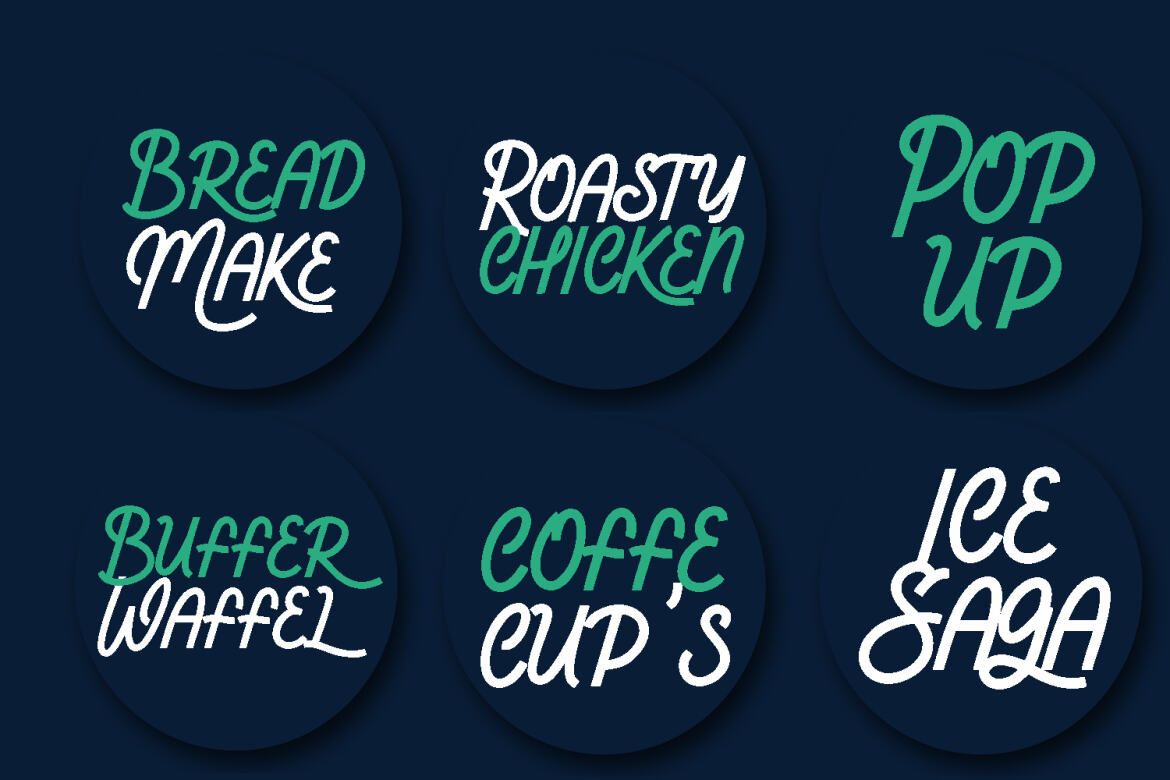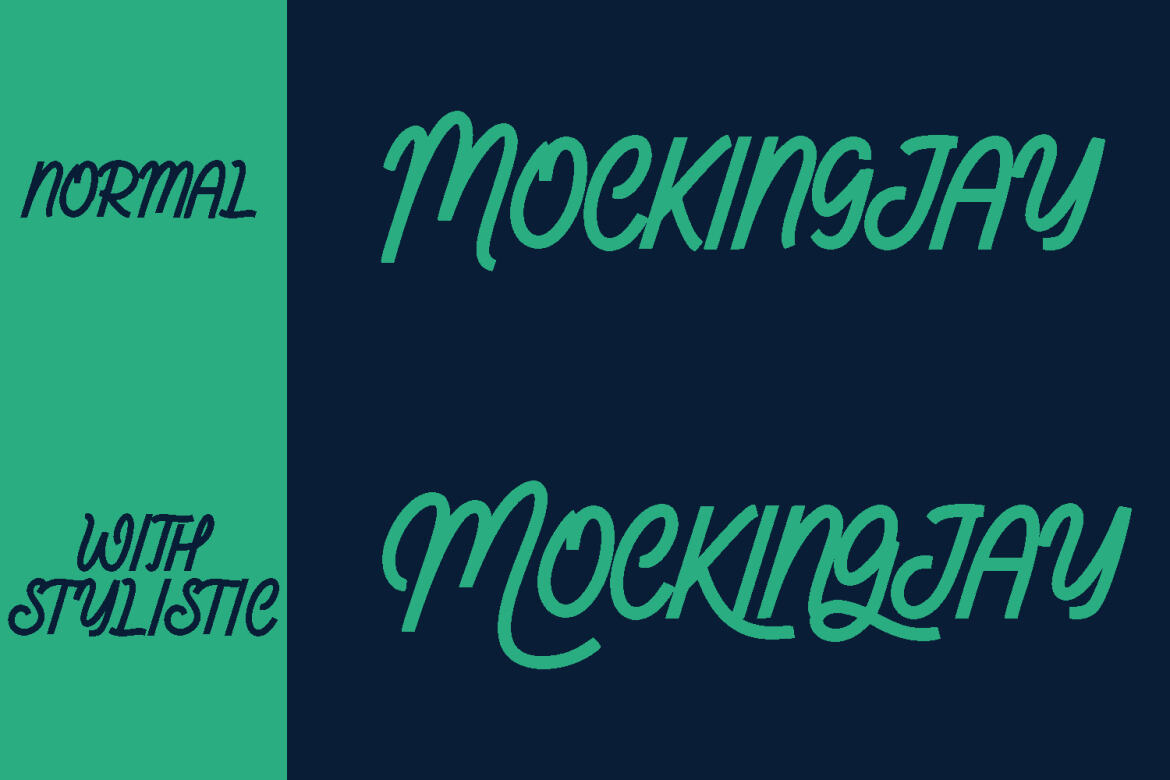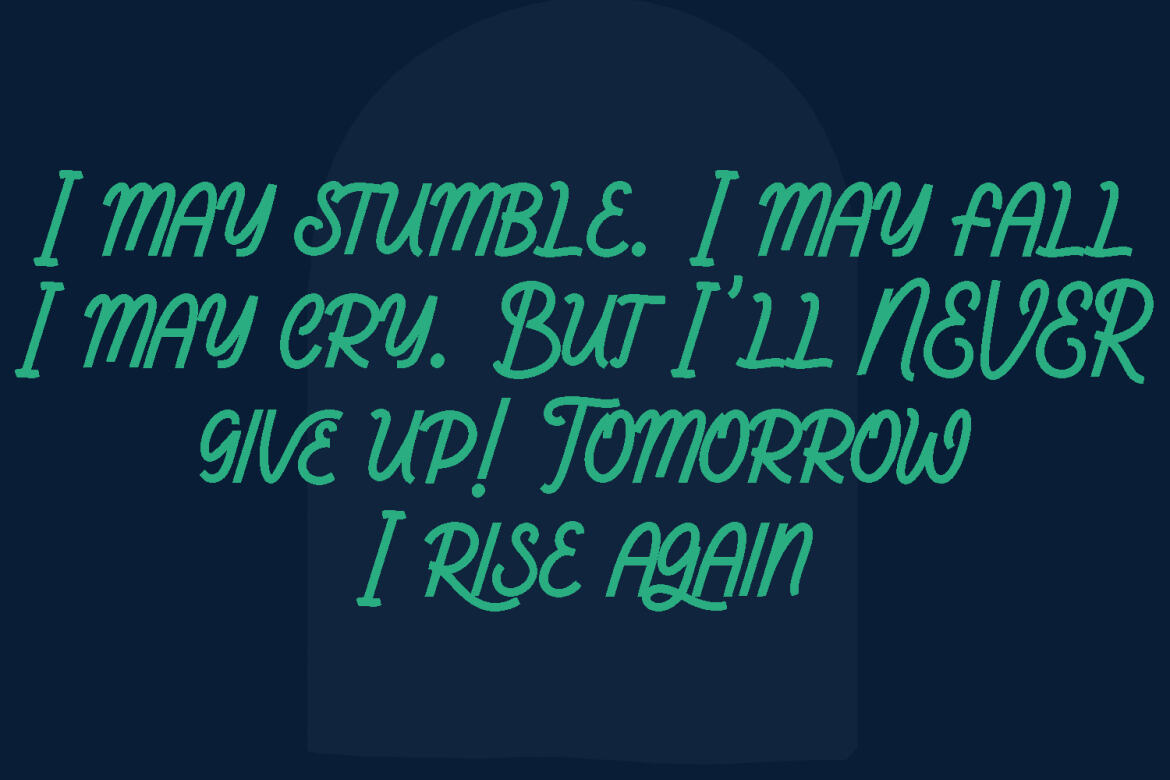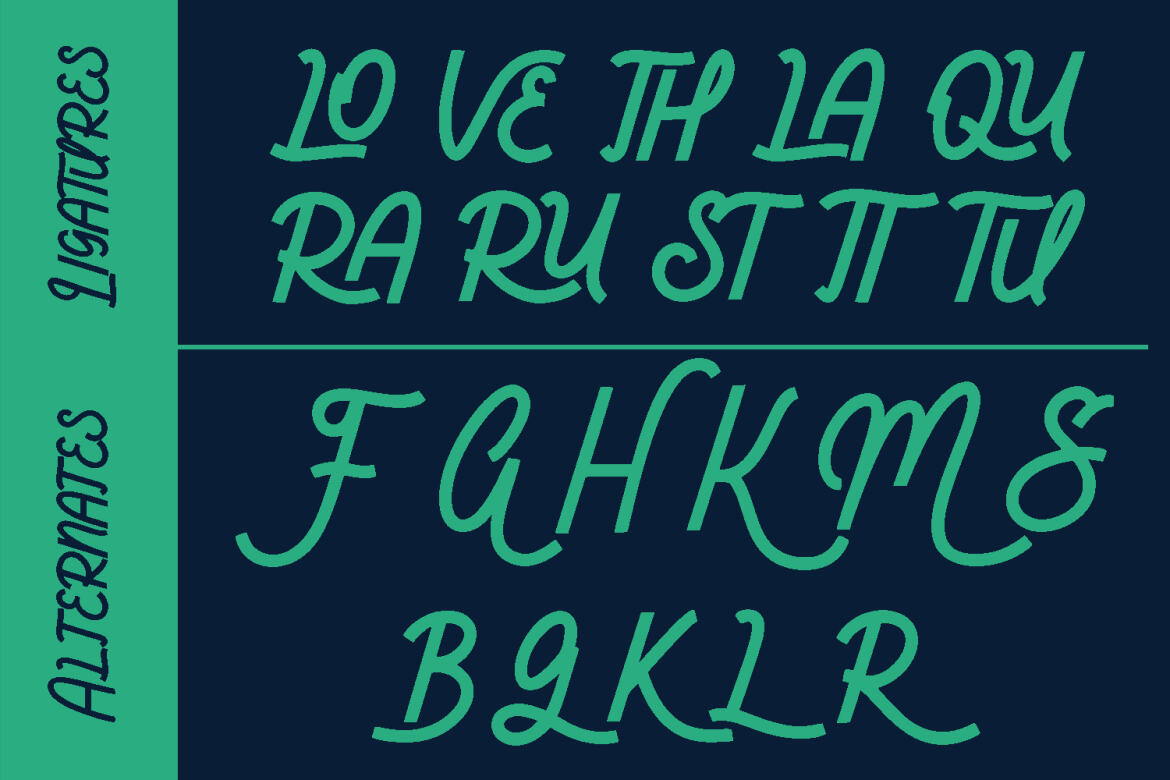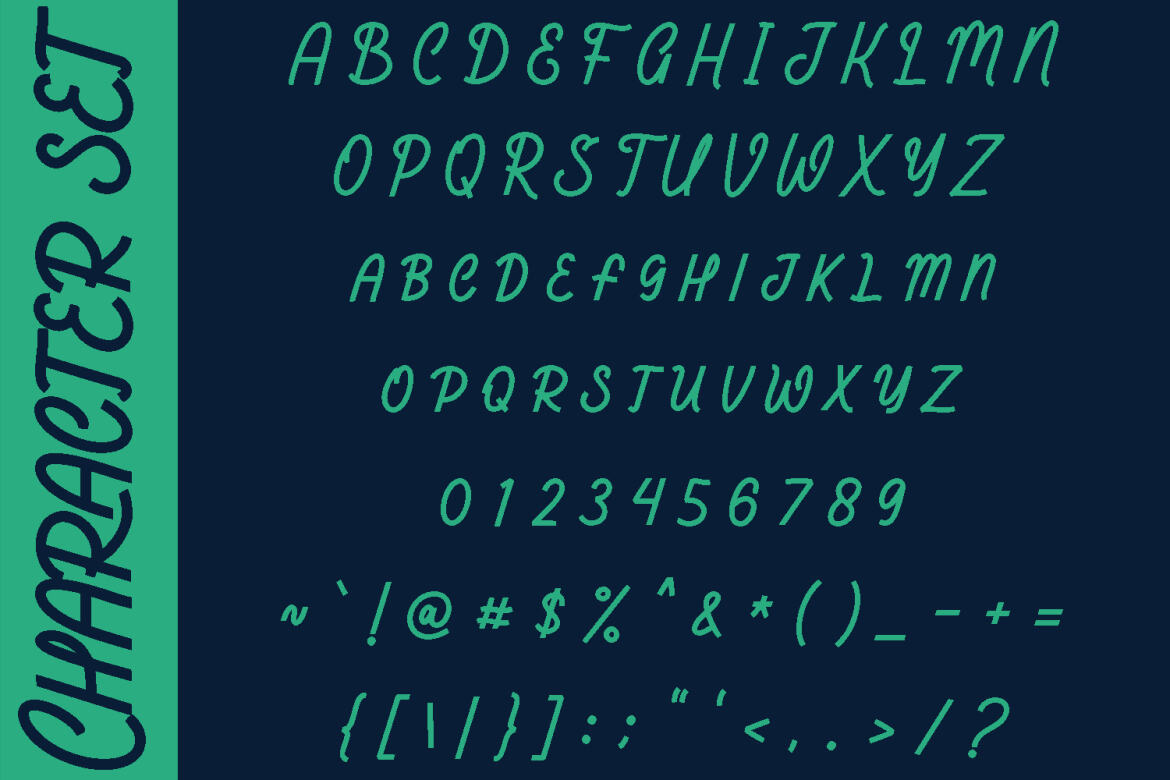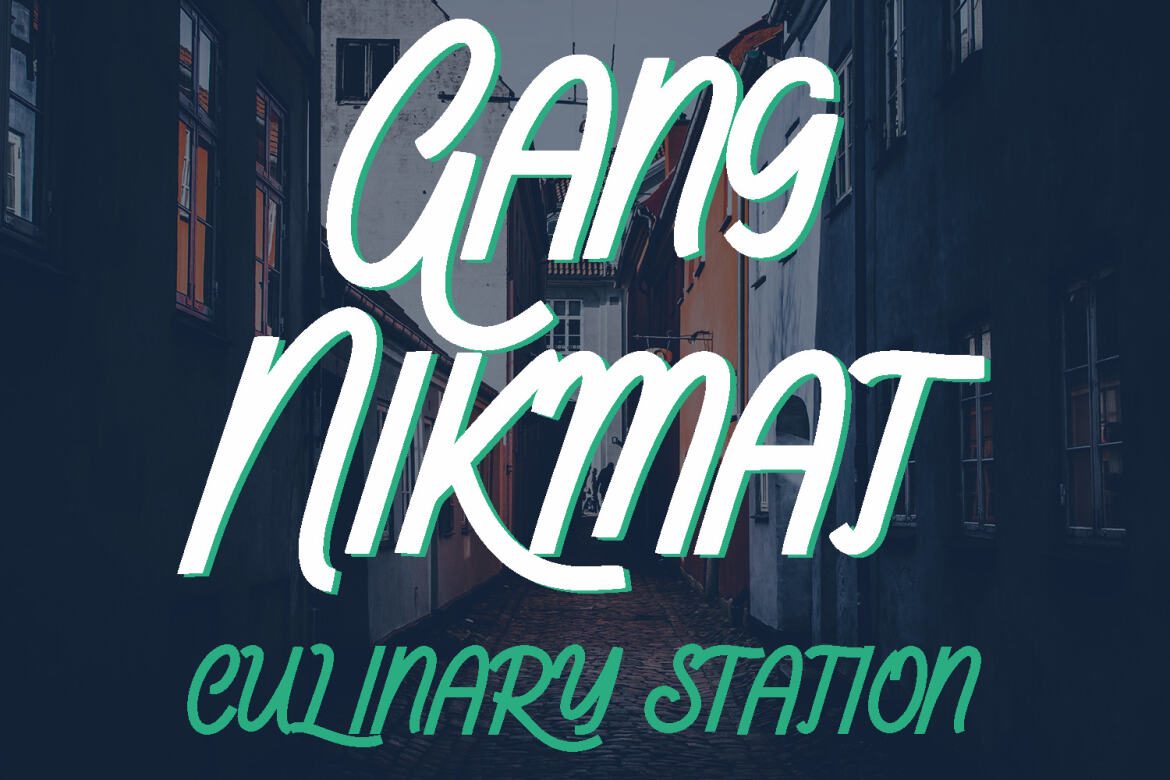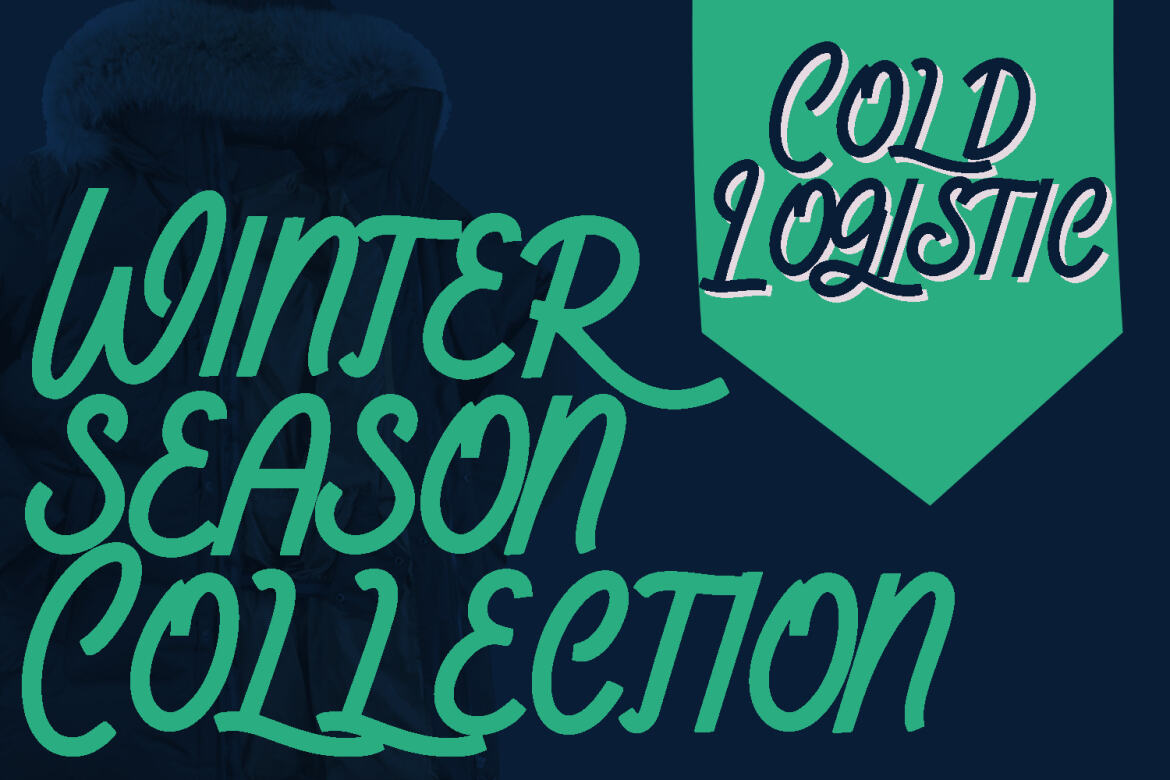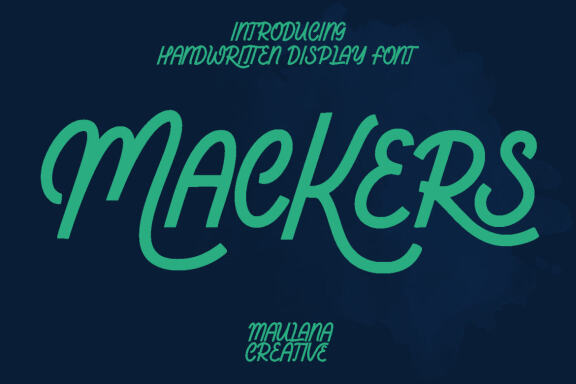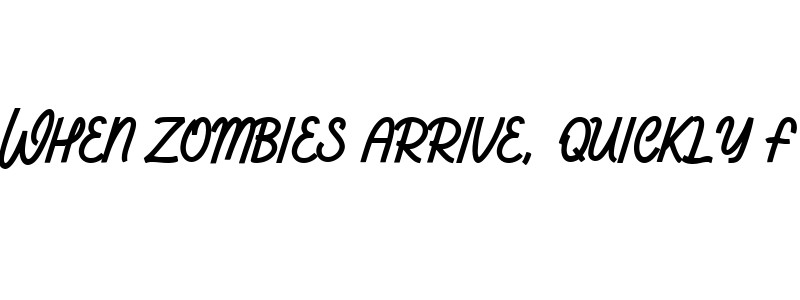
Mackers FREE Display Font
Mackers is a Beauty handwritten Display font. With medium cconsist stroke, fun character with a bit of ligatures and alternates. To give you an extra creative work. Mackers font support multilingual more than 100+ language. This font is good for logo design, Social media, Movie Titles, Books Titles, a short text even a long text letter and good for your secondary text font with sans or serif. Make a stunning work with Mackers font.